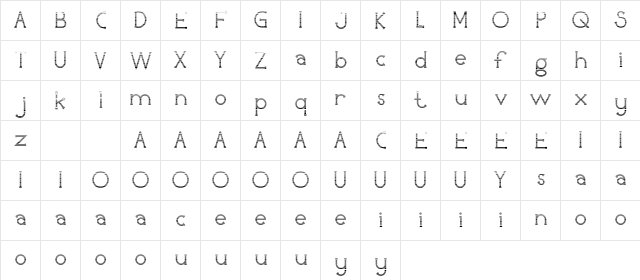
Holea DEMO Gradient Regular Font Preview
Holea DEMO Gradient Regular
Holea DEMO Gradient Regular Font Details
| Foundry | Edric Studio |
| Designer | Deyan |
Design Context for Holea DEMO Gradient Typeface
Holea DEMO Gradient takes a measured approach to typography — its balanced proportions and neutral character make it a reliable workhorse for both digital and print work.